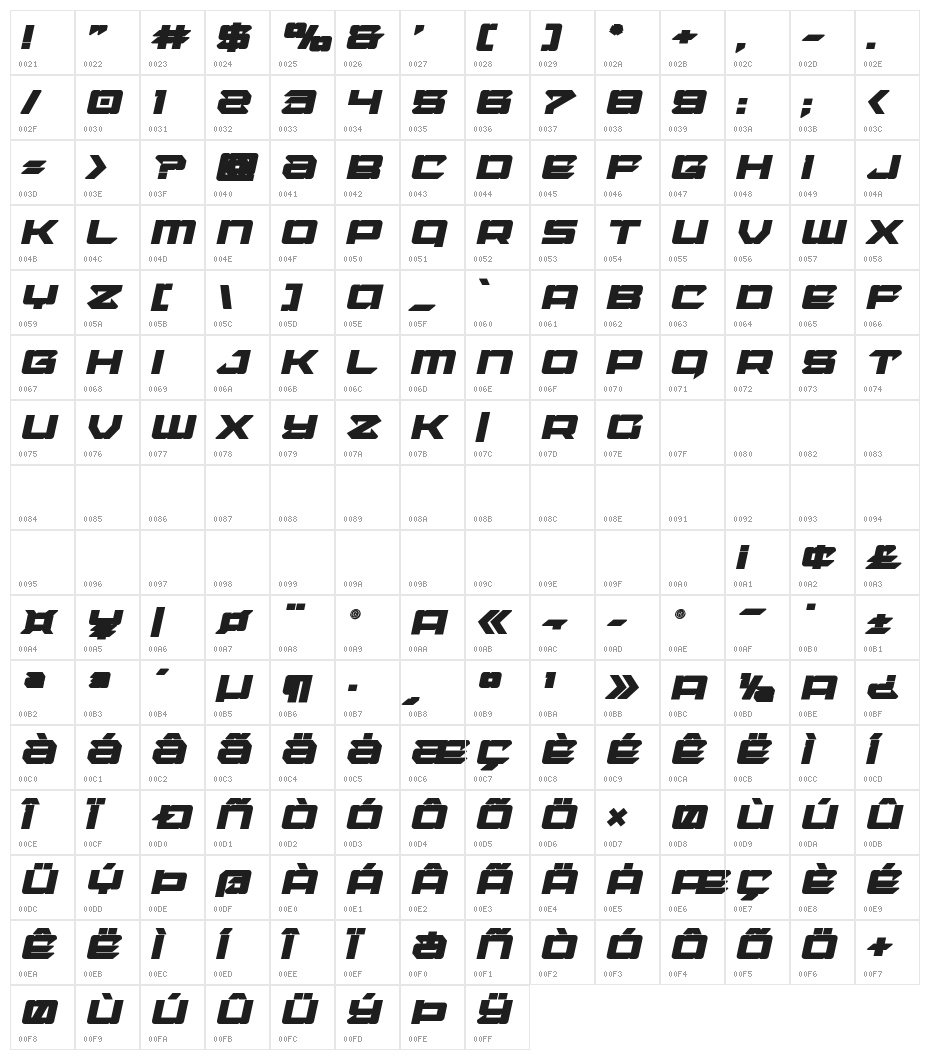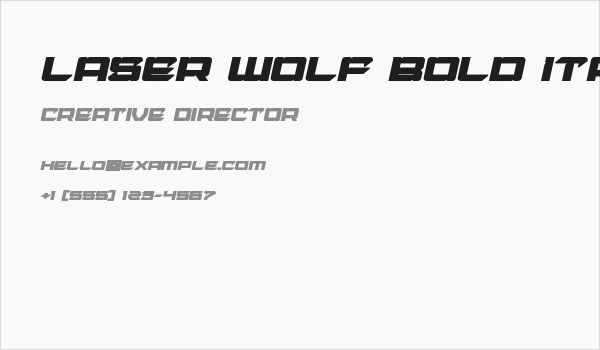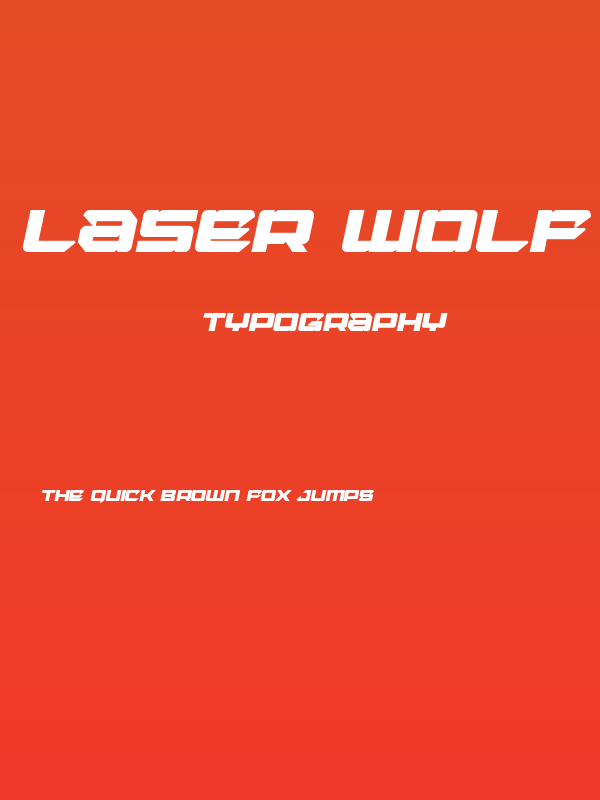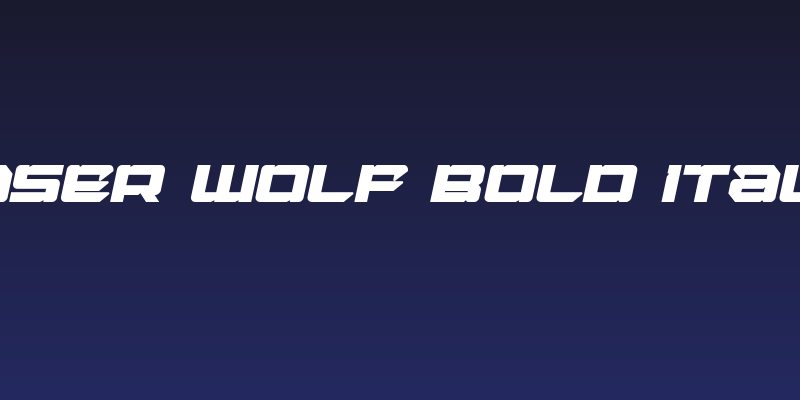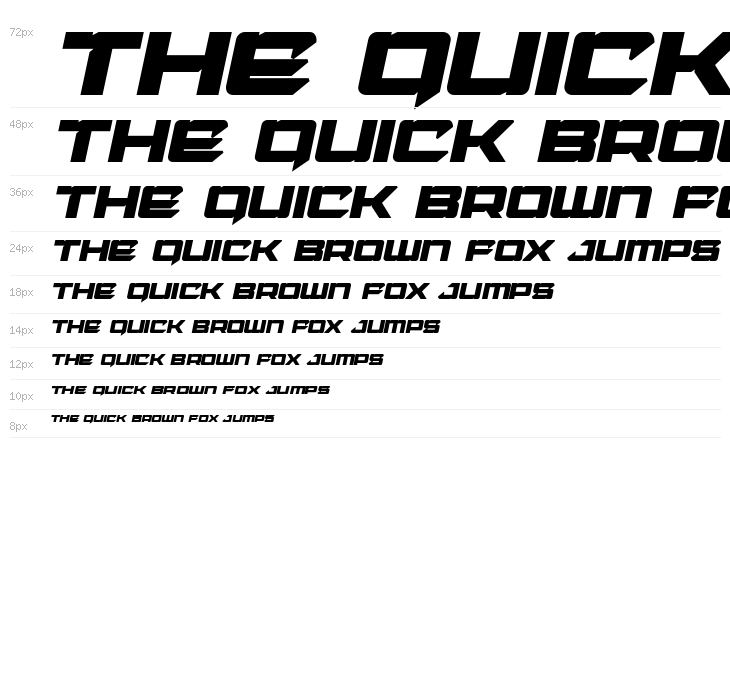
Laser Wolf Bold Italic Font
Laser Wolf Bold Italic Description
This font features a bold and italicized style with a futuristic and angular design. The characters are sharply defined with a distinct slant, giving them a dynamic and energetic appearance. The uppercase and lowercase letters maintain a consistent geometric form, while the numbers and special characters follow the same stylistic cues. The overall look is modern and edgy, suitable for projects that require a strong visual impact.
| Proposed Projects | Ideal for sci-fi themed designs, video game titles, tech branding, and dynamic posters. |